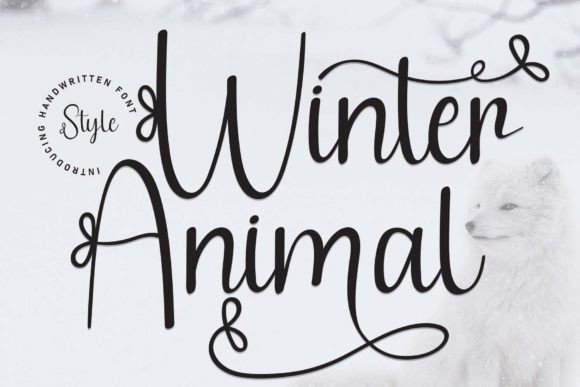
**Winter Animal Font: Where Charm and Whimsy Intertwine**
In a world teeming with digital monotony, where fonts often blend together in a sea of sameness, there exists an oasis of creativity and whimsy – the Winter Animal Font. This enchanting script font, lovingly crafted by the talented William Jhody, is a testament to the enduring power of individuality and artistic flair.
With its playful curves and charming imperfections, Winter Animal Font captivates like a winter wonderland. Its delicate strokes evoke the magic of a crisp, snow-kissed morning, while its sweeping lines hint at the enchanting stories waiting to be told. Immerse yourself in the playful innocence of this font, and watch as your designs transform into captivating expressions of art.
**A Font With a Heart of Gold**
Winter Animal Font is more than just a collection of characters; it's a gateway to a world where imagination reigns supreme. Its inherent friendliness and warmth make it the perfect choice for those seeking fonts for wedding signs. Imagine your vows, written in the elegant script of Winter Animal Font, dancing across a chalkboard or wooden sign, beckoning your guests into a realm of pure enchantment.
But the versatility of Winter Animal Font doesn't stop at wedding invitations. Its charm extends to cards, posters, branding, and any creative endeavor craving a touch of whimsical flair. Unleash your inner artist and let Winter Animal Font guide you through a symphony of creativity, transforming the mundane into the extraordinary.
**Experience the Magic of Winter Animal Font**
With Winter Animal Font, you'll discover a font that is as versatile as it is captivating. Its playful nature lends itself effortlessly to crafting logos, branding, and social media designs that radiate personality. Its ability to evoke emotions makes it ideal for creating marketing materials that resonate with your audience, leaving a lasting impression that lingers long after they've turned the page.
So, embrace the magic of Winter Animal Font and embark on a creative journey like no other. Let your designs blossom with the charm and whimsy of this extraordinary font, and watch as your creations become captivating masterpieces that speak straight to the heart.